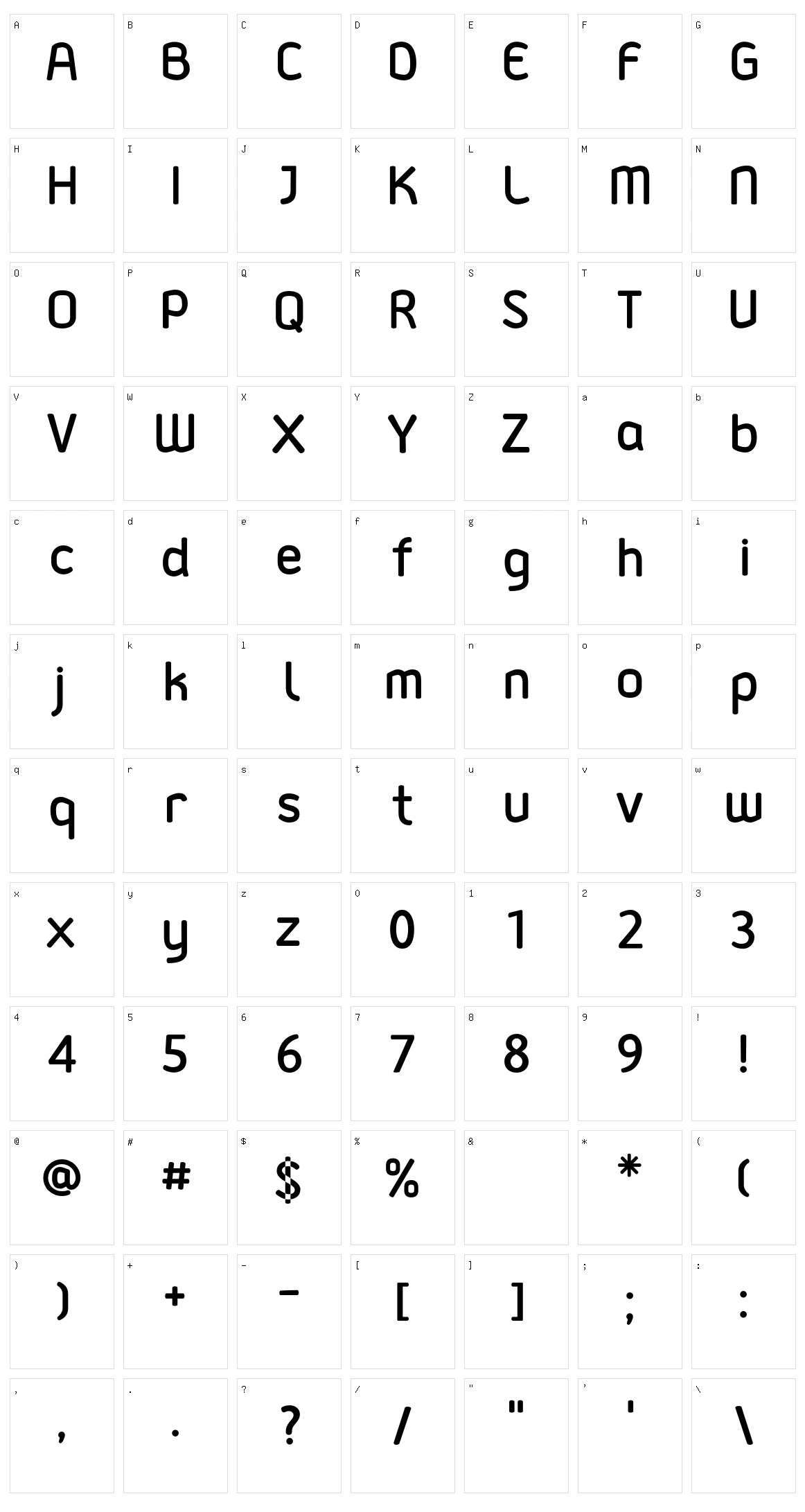
The free font Gadaj is carefully designed by P.Finch, showcasing a thoughtful balance of creativity and usability and falls under the Sans serif font style. When you download the ZIP file, it contains only 10.7 KB of font files, making it lightweight and quick to download. Please review the license details below to understand permitted usage and distribution rights. If license information is not available, we recommend using this font for personal projects only or contacting the author directly for commercial usage permissions.